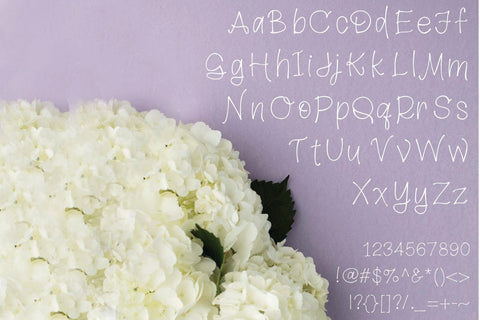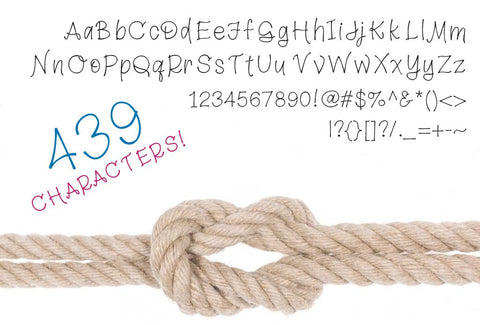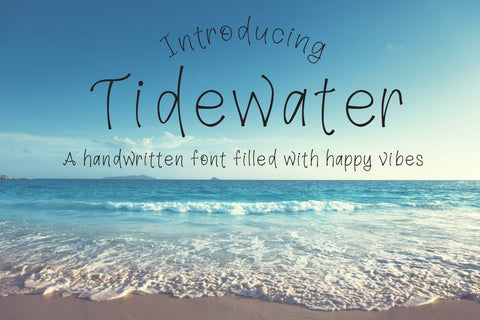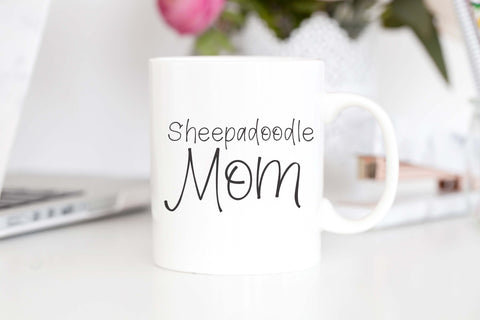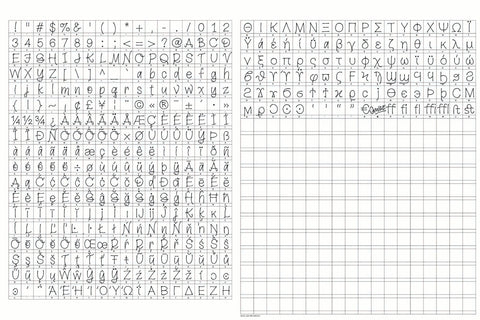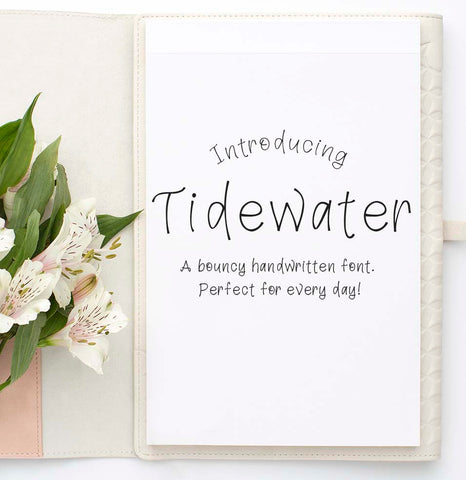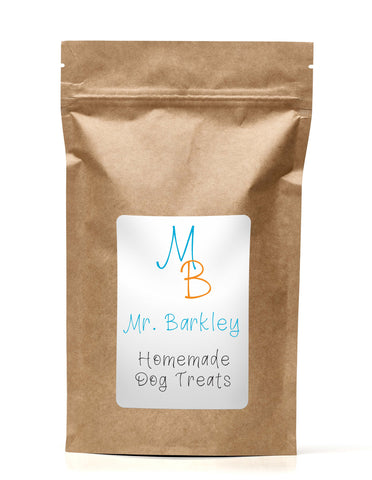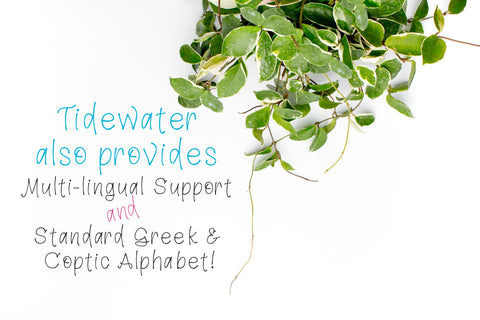
Tidewater Handlettered Font | 439 Characters! | Multi Lingual Support and Greek / Coptic Alphabet
"Tidewater" Hand Lettered font. Contains a whopping 439 characters including Multi lingual support and the standard Greek / Coptic Alphabet
Tidewater is a clean and happy font, perfect for stationery, content, signage, invitations and just about anything you can think of!